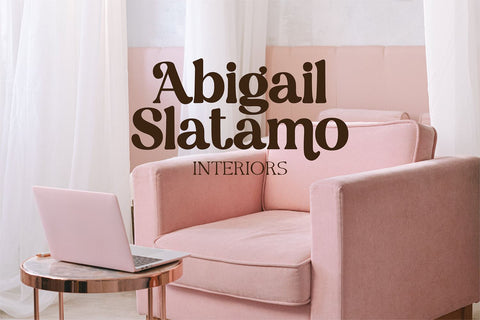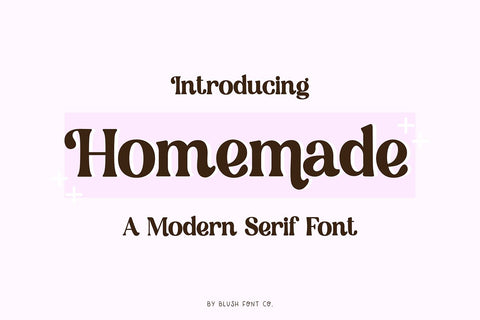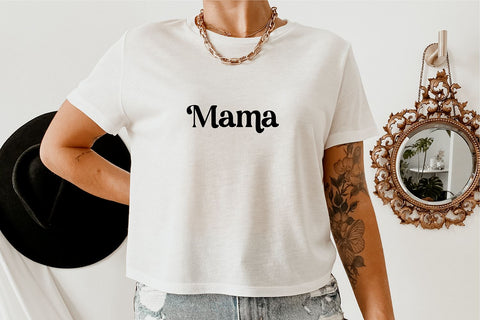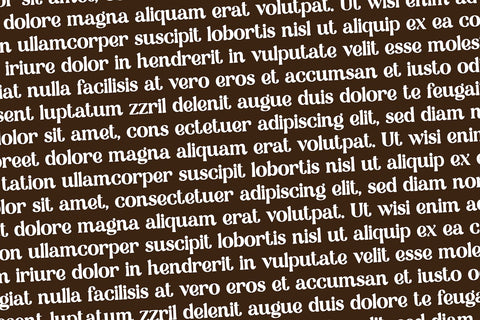
Homemade Modern Serif Font
"HOMEMADE" a bold serif display font with extra characters.
This font is a modern serif font that is perfect for social media or crafty projects. Use if for branding, crafts for decor, invitations, and more! Upper and lowercase glyphs, numbers, punctuation marks, and extra swooped characters.